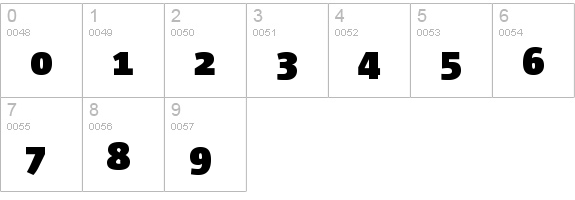
Corpid Black is a maximum-weight, dramatic variant in the Corpid typeface family \xE2\x80\x94 well suited to maximum-impact headlines, posters, and packaging.
Corpid Black font exudes sophistication and modernity with its sleek and elegant design. Its clean lines and bold presence make it a perfect choice for headlines, logos, and branding projects that demand attention. The sturdy letterforms of Corpid Black convey a sense of strength and stability, making it a versatile typeface for a variety of design applications. The best part? Corpid Black is available for free download at FontsMarket.com. This means you can easily access this premium font without any cost, allowing you to elevate your designs without breaking the bank. Don't miss out on the opportunity to add Corpid Black to your font collection and enhance your creative projects with its timeless appeal.